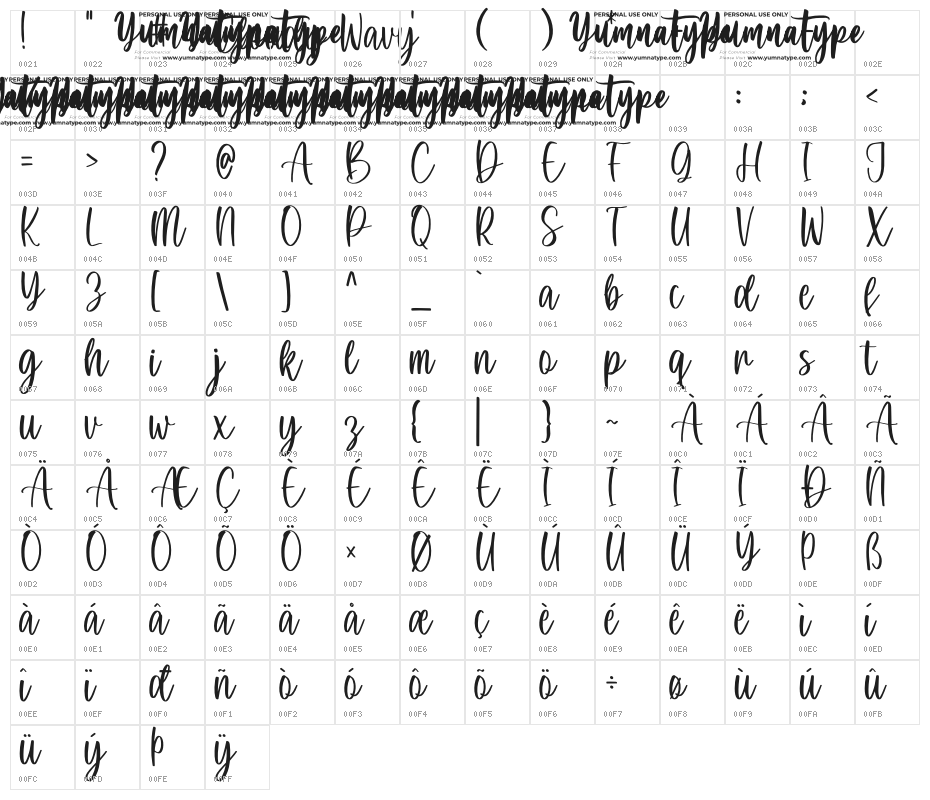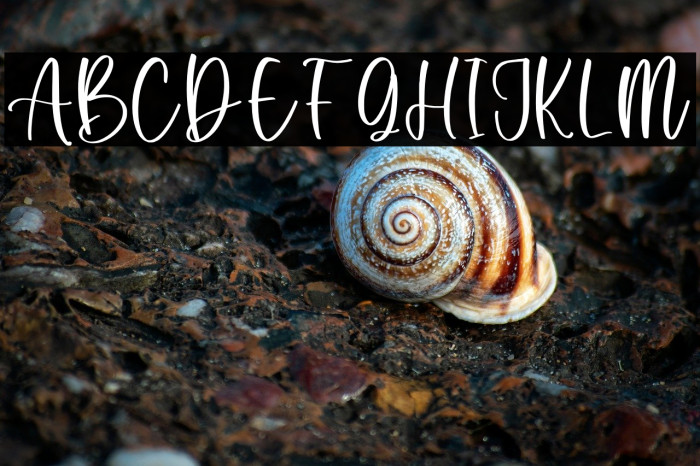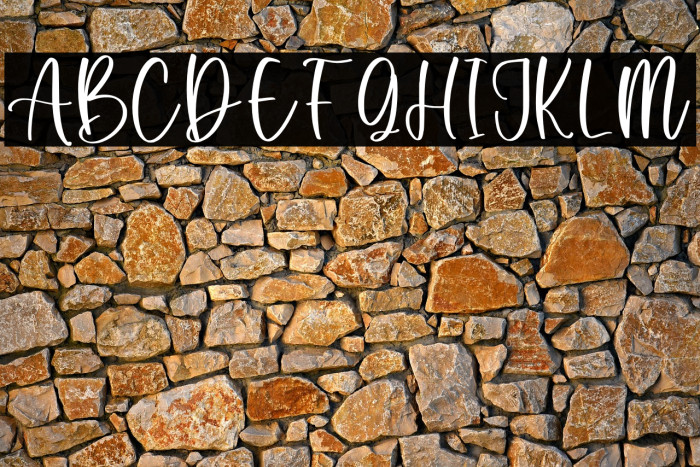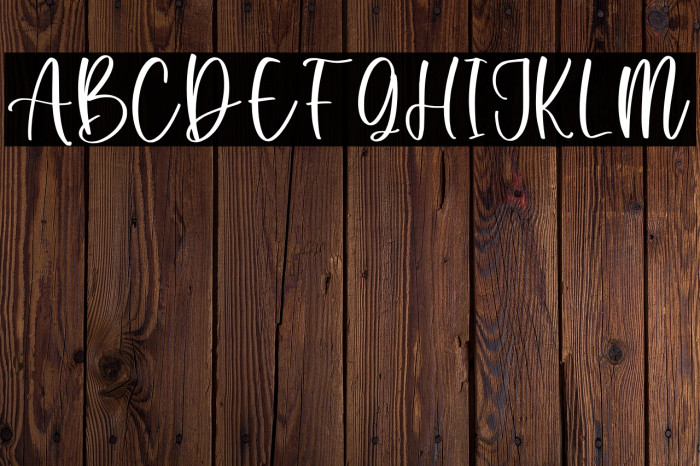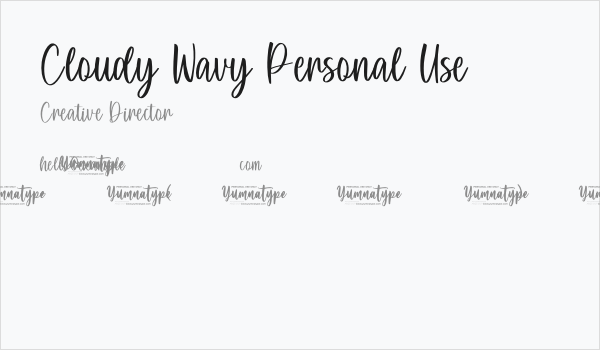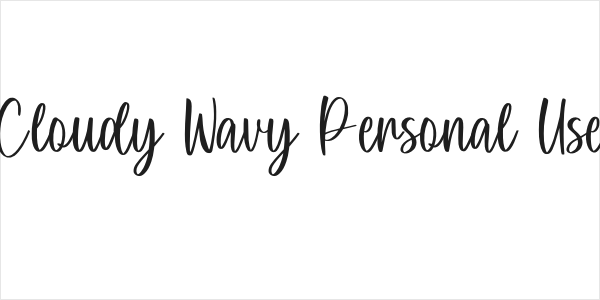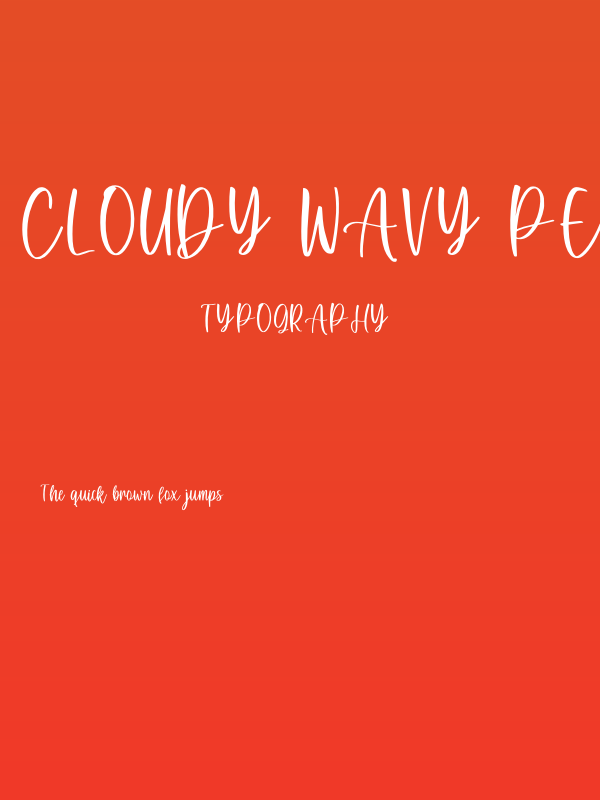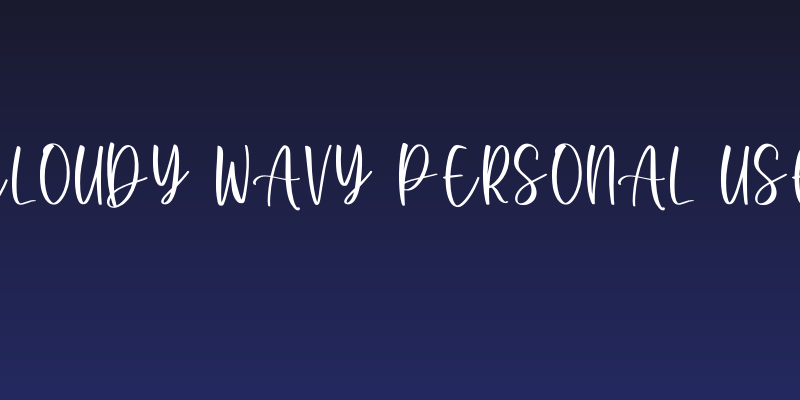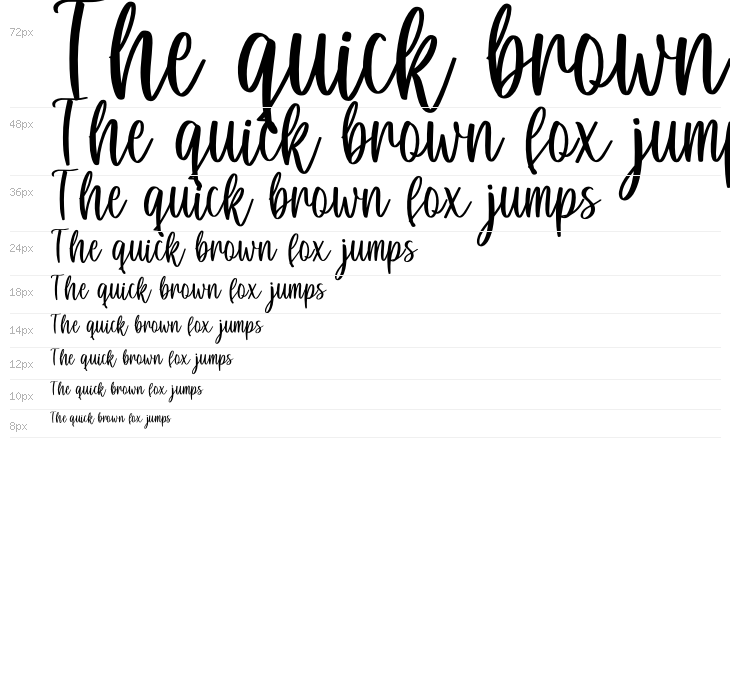
Cloudy Wavy Personal Use Font
Cloudy Wavy Personal Use Description
This font features a playful and flowing script style, characterized by its smooth, wavy lines and elegant curves. The uppercase letters are bold and expressive, with a slight slant that adds to the dynamic feel. The lowercase letters maintain a consistent flow, creating a harmonious and cohesive look. The strokes are thick, providing a strong presence, while the overall design remains approachable and friendly. This font is ideal for projects that require a personal touch, such as invitations, greeting cards, or branding materials that aim to convey warmth and creativity.
Use CaseLogos, Headlines, Invitations
Proposed ProjectsIdeal for invitations, greeting cards, branding materials, and creative projects.